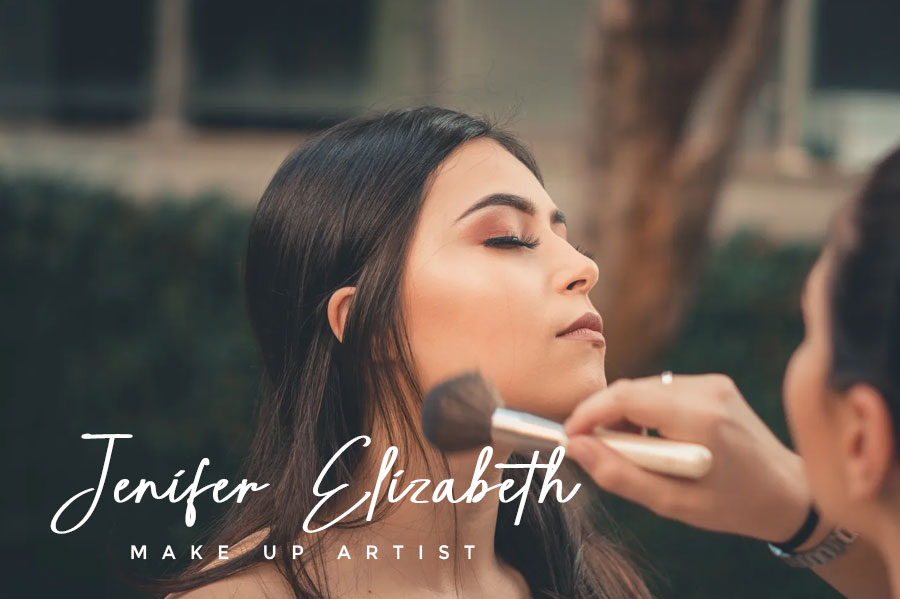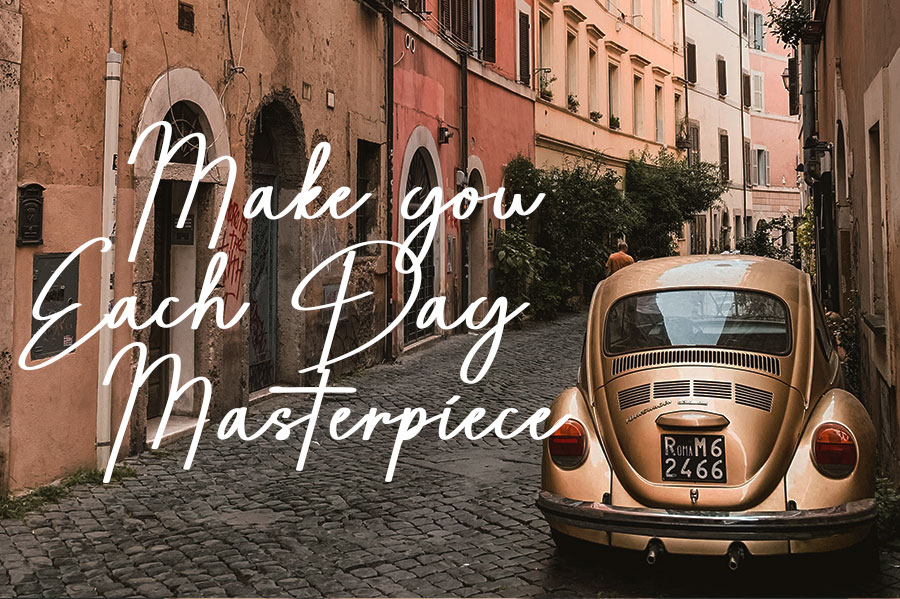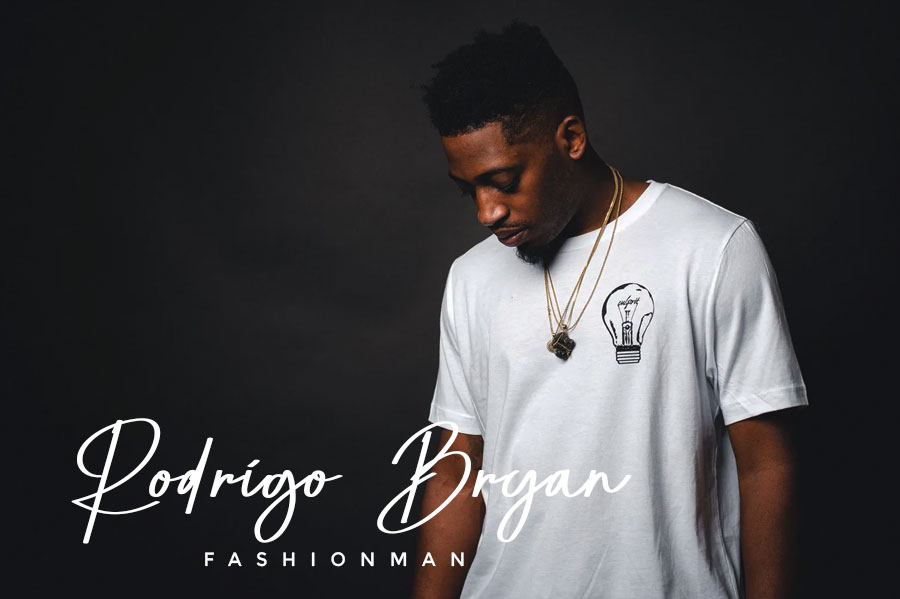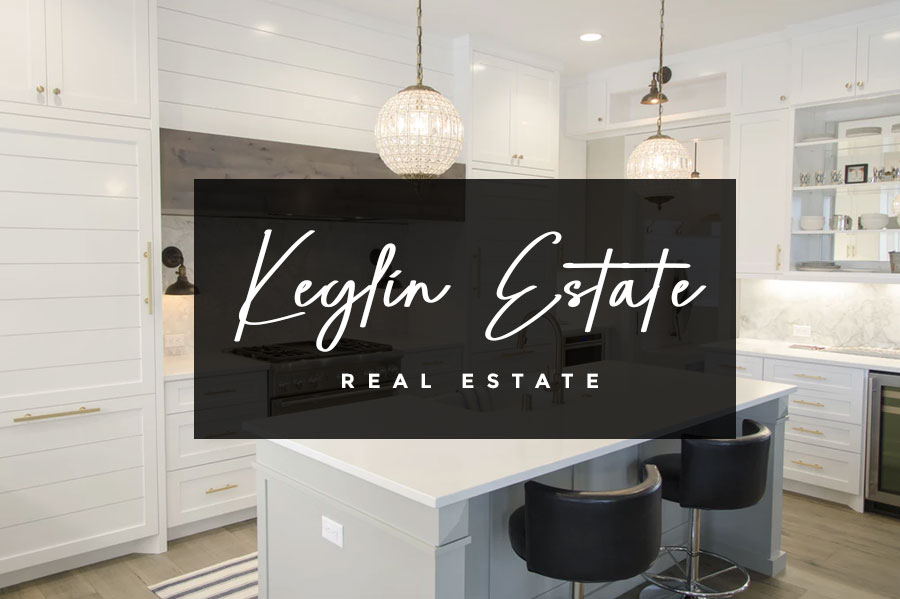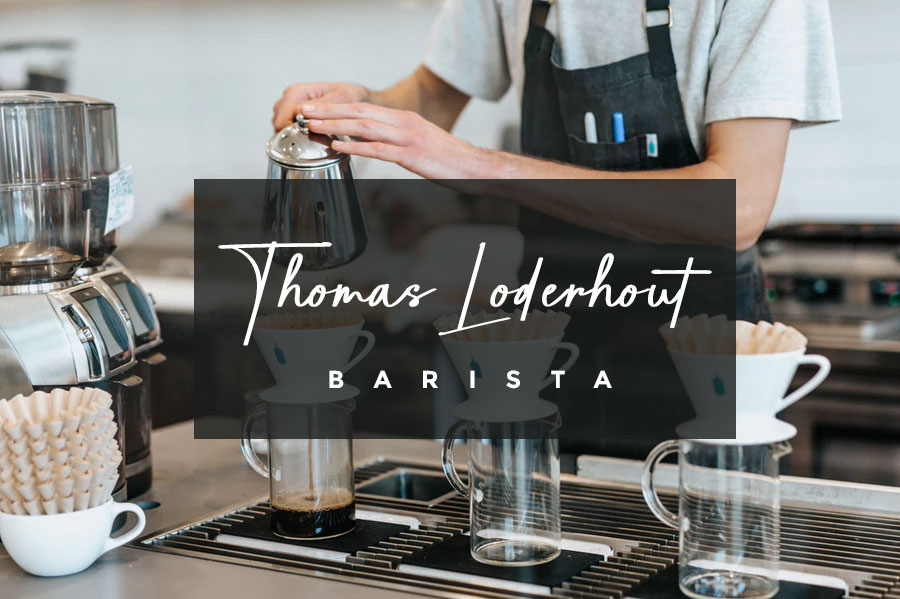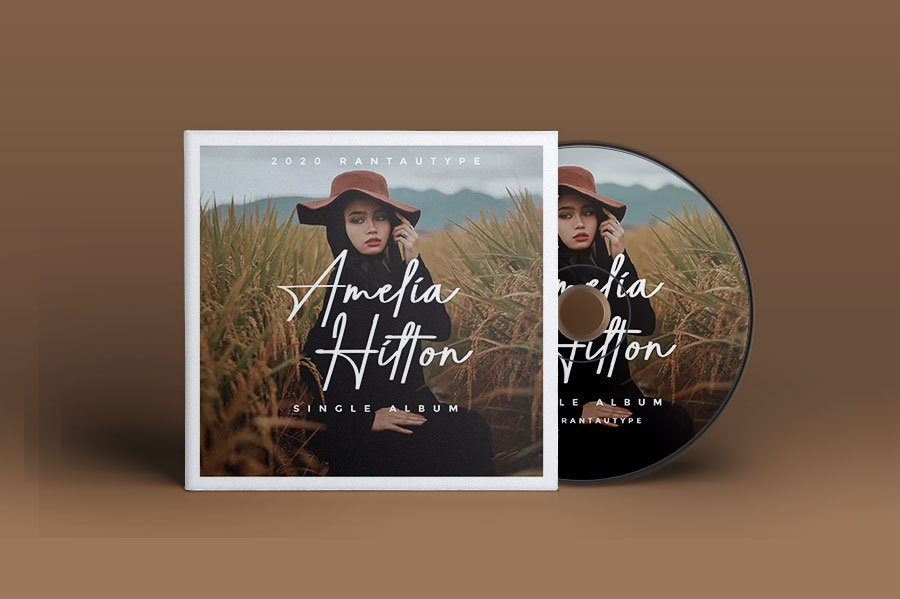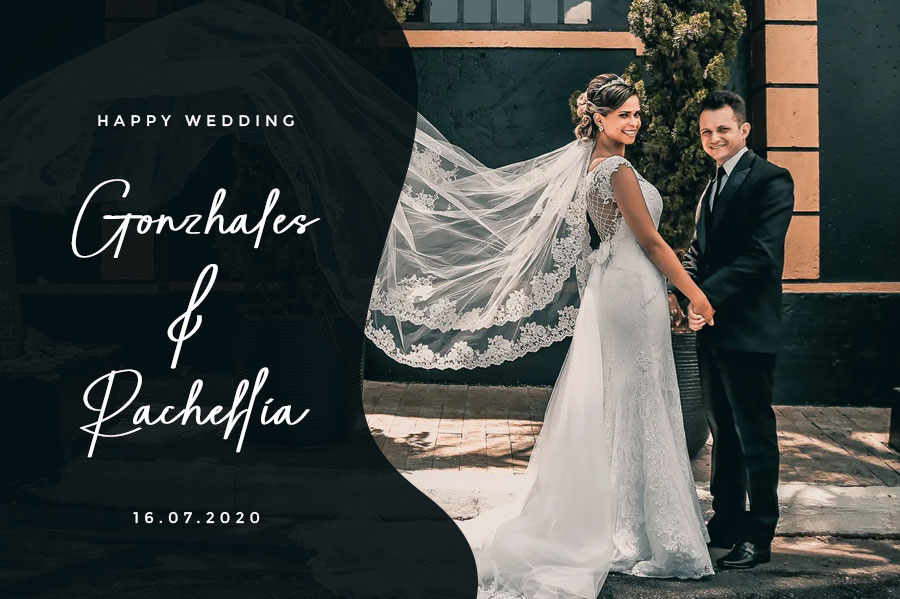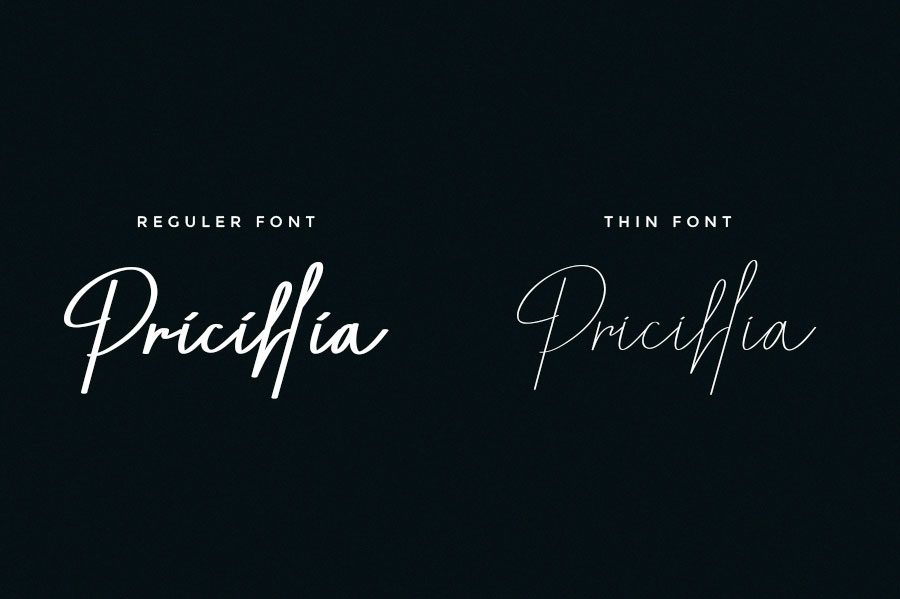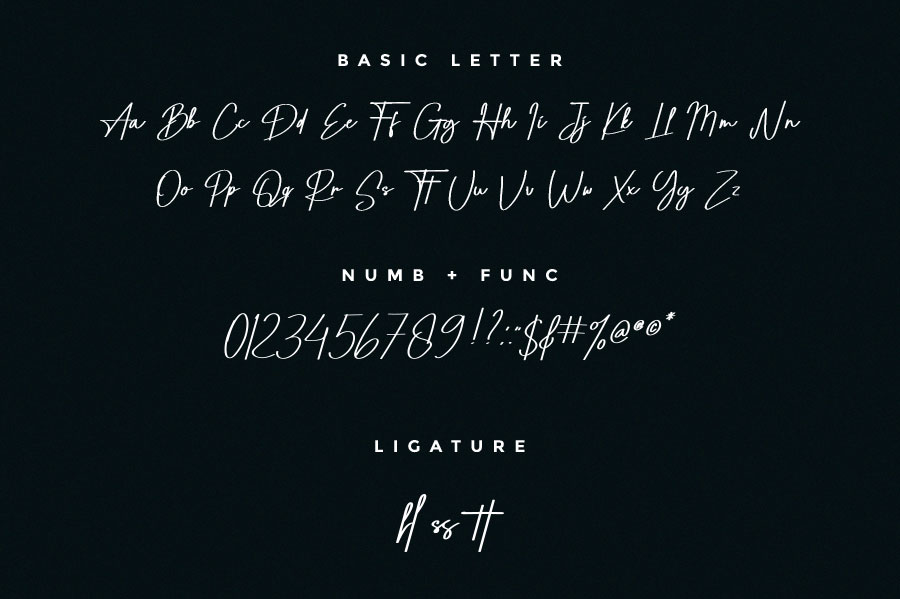
Hi Ladies and Gentleman ! Proudly present Another styles font “Pricillia ” script signature handwritten font.
This font reflects a beautiful and elegant woman which can be interpreted professional. we keep this font looks elegant, classy, readable, stylish, catchy and easy to use. Pricilli also have 2 font reguler and thin. Pricilli is the great choice for watermark on photography, signature or signature logo design, quotes, album cover, business card and many other design project. Pricilli is here to make your work to high level!!! Features